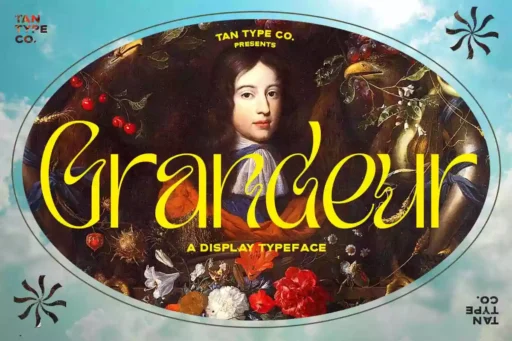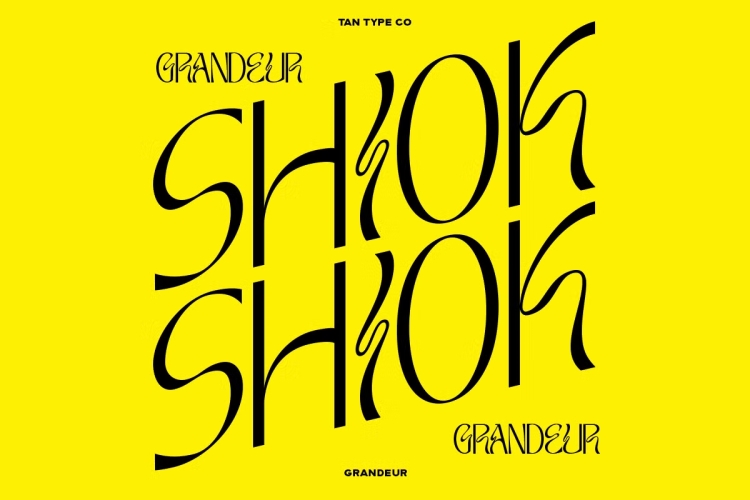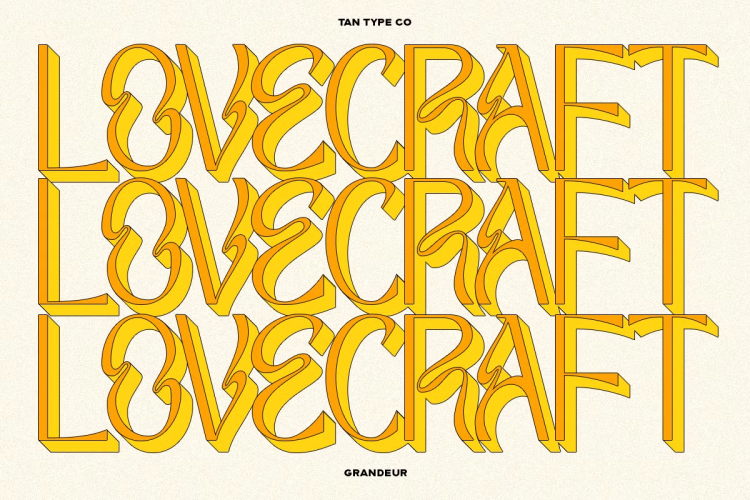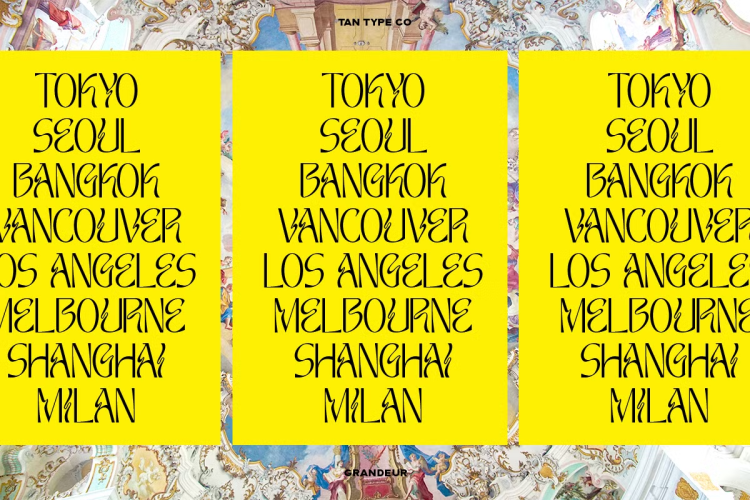
TAN GRANDEUR Font
TAN GRANDEUR is a decorative and stylish font by Tantype, a type foundry specialising in designing psychedelic style fonts. This font is extravagant with psychedelic energy which we can say is not your everyday font. This typeface may not be easy to read, but it conveys the message to the audience. It is suitable for party posters and banners.
TAN GRANDEUR Font is a Decorative Fonts font that brings a professional and versatile look to your projects. TAN GRANDEUR is a decorative and stylish font by Tantype, a type foundry specialising in designing psychedelic style fonts.